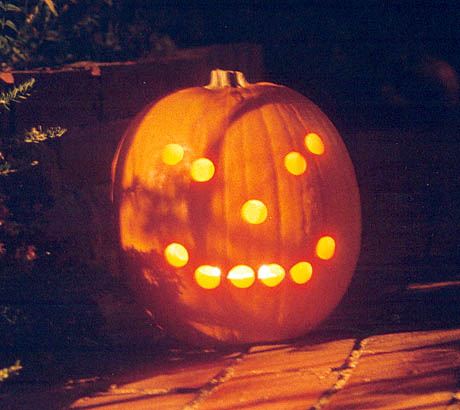
Very cool, Hrant. I spent all Halloween trying to think of something clever to carve and I ended up with a plain ol' pumpkin instead of a jack-o-lantern.
I would sell it, but pumpkin bitmap fonts have a very limited lifespan: the teeth are already caving in.
BTW, you know how in type design some people say the tool affects the results and others disagree. Well, in pumpkin bitmap design, the tool (an apple decorer) seems to have a fundamental significance.
As for the Greek version, it was a disaster. Maybe I should have used dolmades...
...if you need a greek version, you'd better not use dolmades, because there is a confusion if it is greek or turkish food...and if there is something greeks and turks would claim both, believe me they will.
BTW (as you prefer), you seem to know a lot about greek foods and fonts? Have you been in Greece?...after a second thought erase "fonts" from the question above... outside greece i think they know more about greek typography than the native designers.
I used to go to Greece a lot as a kid; as an adult I was there in July*, and previous to that 7 years ago. Greek food is amazing. Mediterranean cuisine in general is the best. Fortunately LA has a lot of good restaurants from every culture. Greek fonts: I think non-Greeks did a lot of damage in the past (like Porson, and even Aldus), but in the computer age the Greeks themselves made things worse. But it looks like in the past decade there's been a lot of discontent (in a good way), so soon we might see a major renaissance.
So Hrant you were at the conference in Thessaloniki! I stay in Thessaloniki and I took part in the conference, so we may met.
I agree with you that the "latinized" of greek letters by various non-greeks made damage (to me the most horrible example was Van Krimpen's "Romulus", but I like Porson's types).
I guess, you propably know Yorgos Matthiopoulos and the Greek Fonts Society. People like Yorgos and Klimis Mastorides are our hopes for this renaissance you mention...but to be honnest, maybe 1 in 10 graphic designers in Greece really care about the identity of the form of the greek letters, not to say that adjusting the forms of latin fonts seems ideal to them...and that's why I think Matthiew Carter is one of the great designers of our times, but he did make damage in the development of the greek design identity.
(From pumpkins to Porson... Isn't the internet amazing?)
I was only at the conference the day I was on. Your town simply had too much to offer!
Romulus was indeed a monster, but even in this age of (supposed) cultural sensitivity it has admirers. And it's interesting to note that some of our best Latin designers made some of the worst non-Latin fonts. Why is this? I think the reason is pride, a dangerous two-edged sword: it motivates creativity in what's your own, but also causes you to look down on what isn't.
The problem I see with Porson is one of my main contentions with the whole of western philosophy, and its love of simplification; humans are not simple things - ligatures are *useful*. Plus the one thing he should have "simplified" (removing the slant that Aldus so wrongly implemented), he didn't.
There seems to be a lot of Greek type designers these days, but my acquaintance with them is as limited as my understanding of the script. That said, the person who has so far impressed me the most on the ground is Katsoulidis; there's also Gerry Leonidas, who has great depth of knowledge.
As for most Greeks not caring, yes, it's a problem, since change comes quickest when people have awareness. But as long as there's less people who favor Latinized type than those who want to return to authenticity, that's not so bad. In the 70s, when Carter was making those Latinized fonts, he was following the direct wishes of his Greek clients. He really couldn't have said "shame on you for betraying your culture"... Who wants to become a martyr for somebody else's culture? (Well, I guess the idle bourgeoisie does, with their "Free Tibet" bumper stickers...) I think it's a very high reflection on Carter that he had enough of a reaction to the cultural bankruptcy of his Greek clients to make Cadmus (and then Skia).
greece's problem is its complex to highlight its relation to ancient greece and to insist that it has been the cradle for western culture to which we want to belong now, "forgetting" that for a long period greece belonged to the east...
that's why we regard anything imported from the west as something divine and consider some eastern traditional achievemets as not so cool...
there is a need for us to understand the evolution of greek fonts...
if you think of the fact that the design of greek fonts until the end of the 20th century was an import, you'll understand that there is no greek history at all...
so we come to the dilemma for "new" greek font designers: to start again with the bycantine legacy (historically correct, but difficult to introduce) or to follow the achievements of the foreign teachers (also difficult, if you work with a criteria)?..
there is also a third solution, which is being followed by new greek font "designers" and which is the most common habit here:.. to take a latin font and use the latin lc "n" as an lc "eta", the latin lc "s" for the final lc "sigma", the latin lc "z" for the lc "zeta", et al...
The Porsonic style is very distinct from the later developments of Proctor and Scholderer. Like the Aldine style, the Porsonic has upright caps and slanted lowercase. The most distinctive characteristic of the style are the lunate epsilon and the very round, full alpha. The Porsonic style is a kind of hybrid of the Aldine and Romantic styles but simplified and regularised. It looks like what it is: Richard Porson's meticulously neat Greek handwriting, which North Americans would call 'printing' because with few exceptions the letters do not join up.